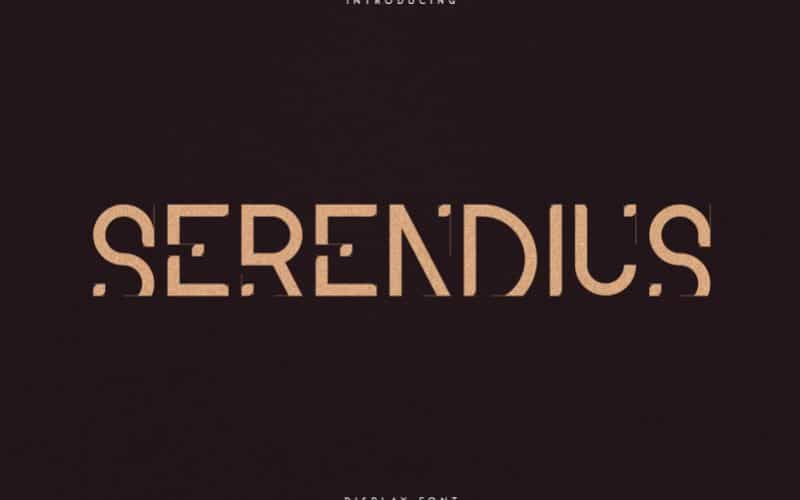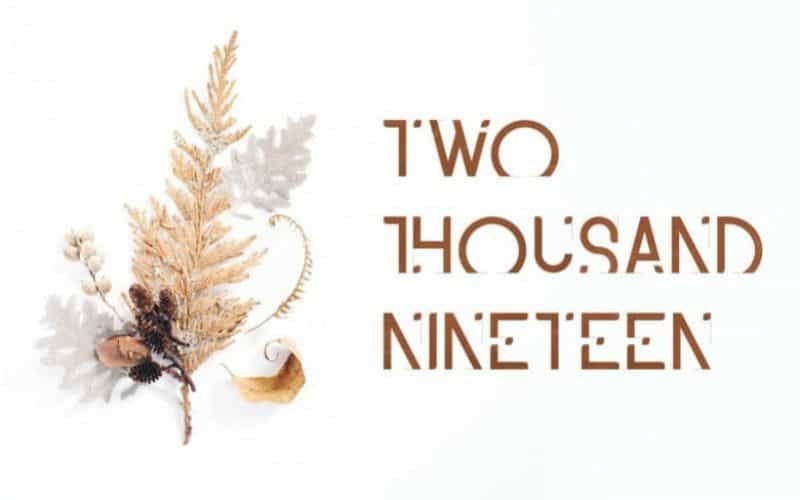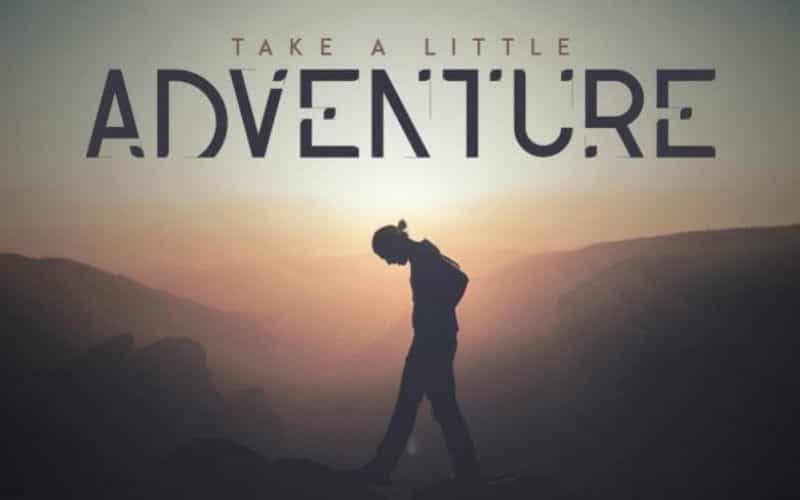
Serendius is a graceful, strange-looking font with ligature glyphs and multilingual support. It is a font that can be used in several different sizes, big and small, and it still works perfect.